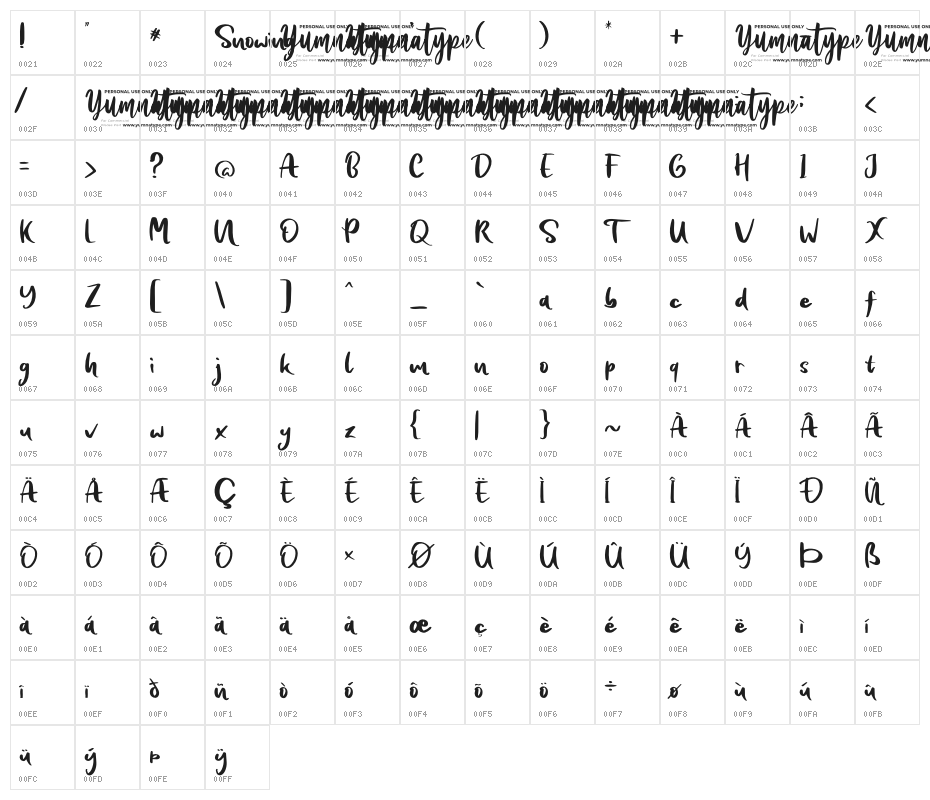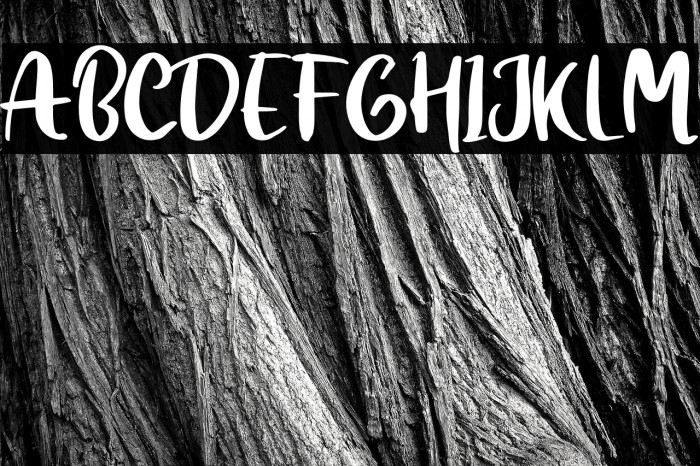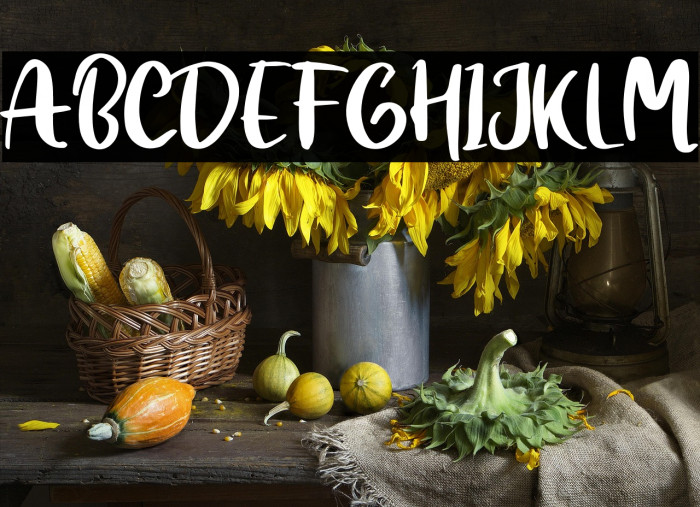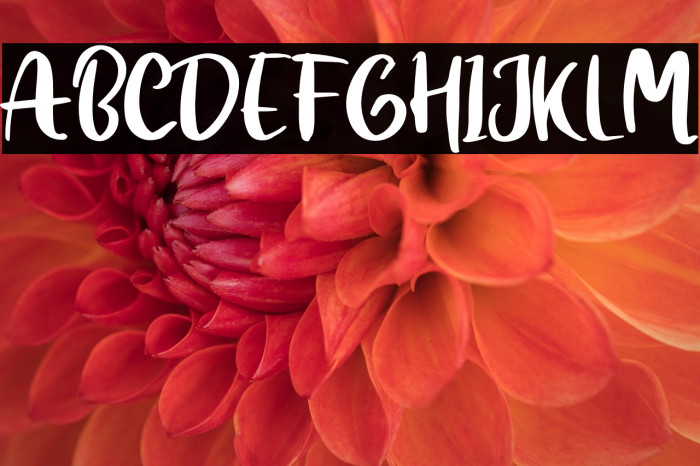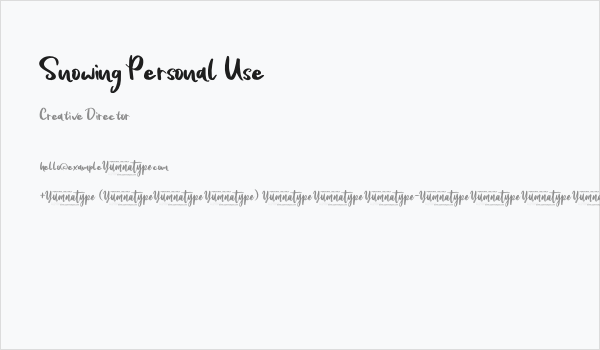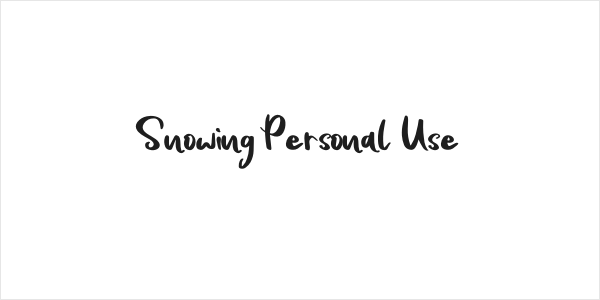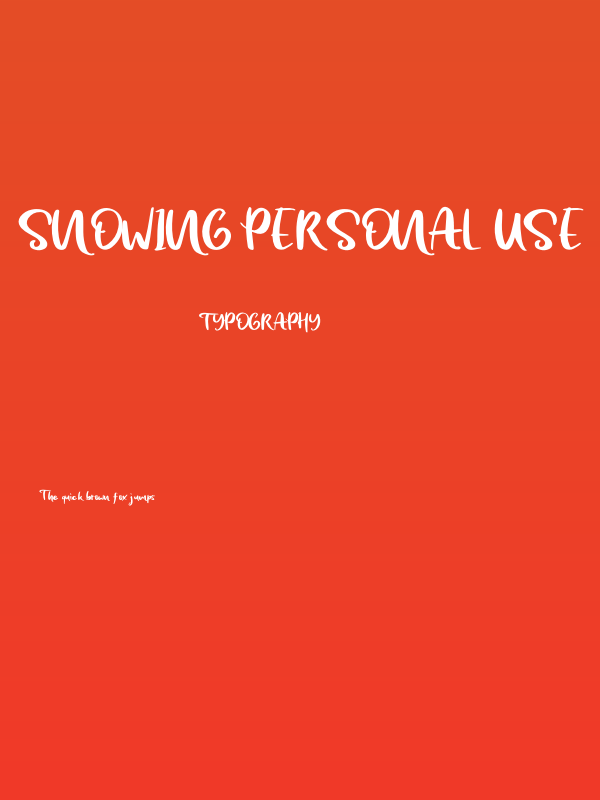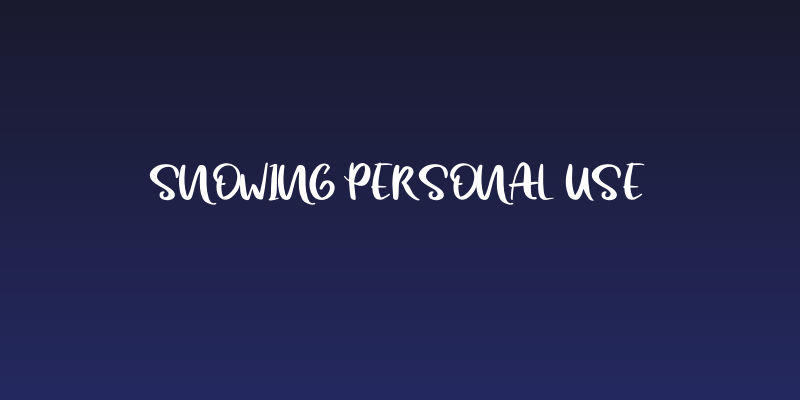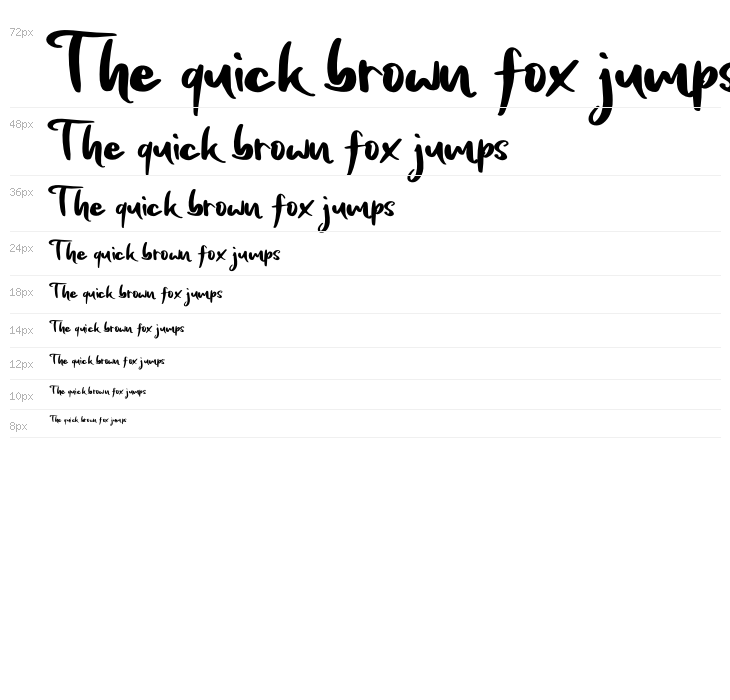
Snowing Personal Use Font
Snowing Personal Use Description
This font exhibits a lively and energetic script style, characterized by its bold and flowing strokes. The uppercase letters are tall and slightly slanted, giving a sense of movement and dynamism. The lowercase letters maintain a consistent style with a playful and informal touch, featuring rounded edges and varying stroke widths. The numbers and special characters follow the same expressive design, ensuring a cohesive look across all elements. This font's handwritten appearance adds a personal and creative flair, making it suitable for projects that require a touch of individuality and warmth.
| Proposed Projects | Ideal for greeting cards, invitations, branding, and social media graphics where a personal and creative touch is desired. |